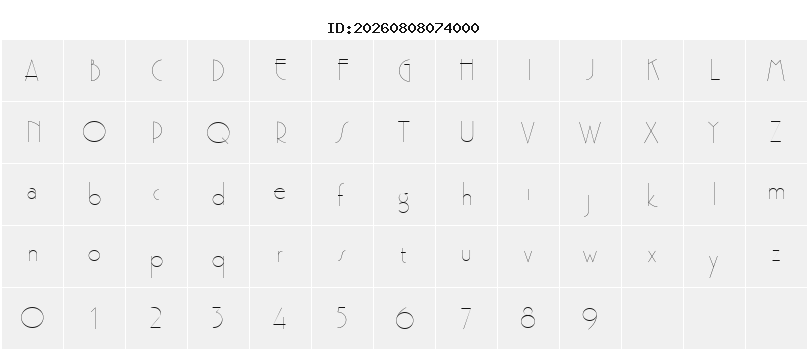
• Font Name: PremierLigD
• Full Font Name: PremierLigD
• PostScript Name: PremierLigD
About PremierLigD.ttf
PremierLigD.ttf is a modern, elegant sans-serif font designed for ultimate readability and visual harmony. Perfect for branding, headlines, web design, and print materials.